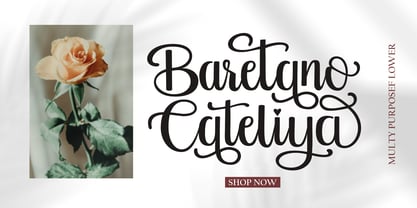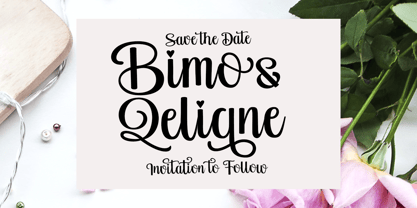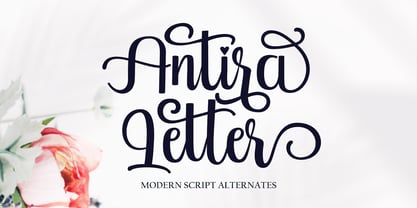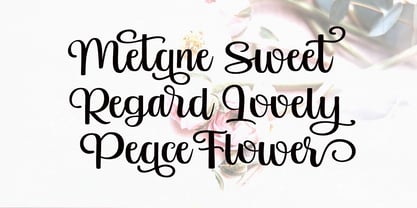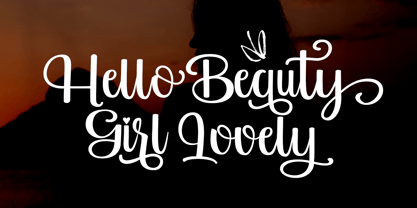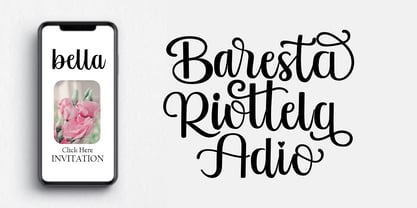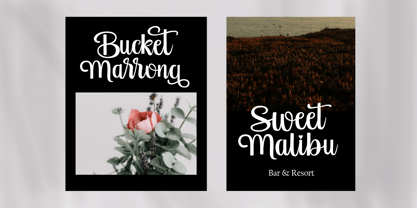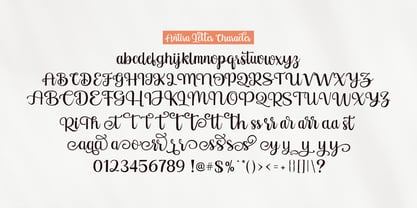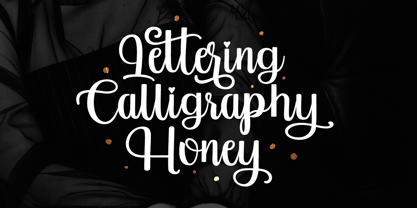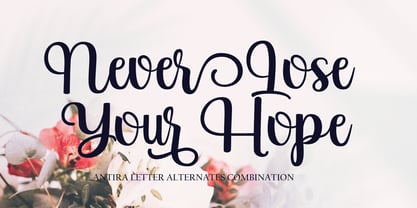
Antira Letter
by Gatype
The Antira Letter Font Family was designed by khaidir and published by Gatype. Antira Letter contains 1 styles. More about this family
Antira Letter is a natural handwritten font, it is perfect for logos, invitations, stationery, wedding designs, social media posts, advertisements, product packaging, product design, labels, photography, watermarks, special events or anything else.
Antira Letter comes with a full set of uppercase and lowercase letters, lowercase strokes, multilingual symbols, numbers, punctuation and literature.
Designers: khaidir
Foundry: Gatype